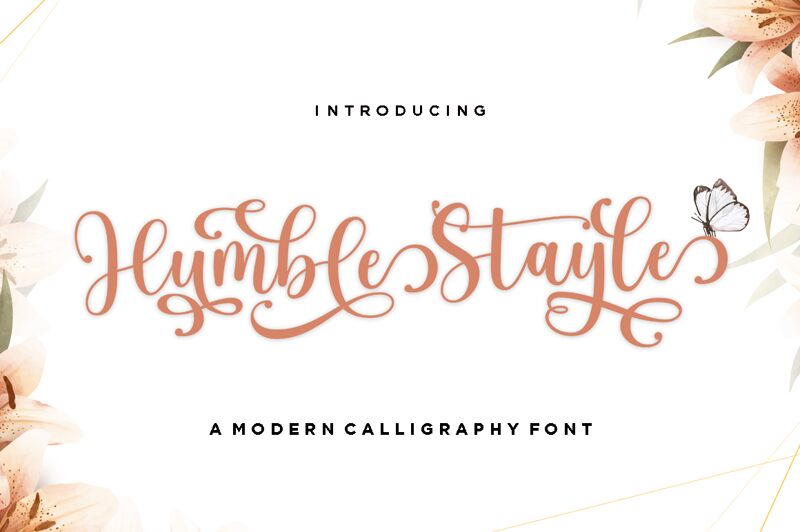
Introducing Humble Stayle, a modern calligraphy font designed by Romi Rahamdi. Perfect for adding sophistication to invitations, greeting cards, logos and more. Create beautiful typography with this unique font that will make any project stand out!
Humble Stayle